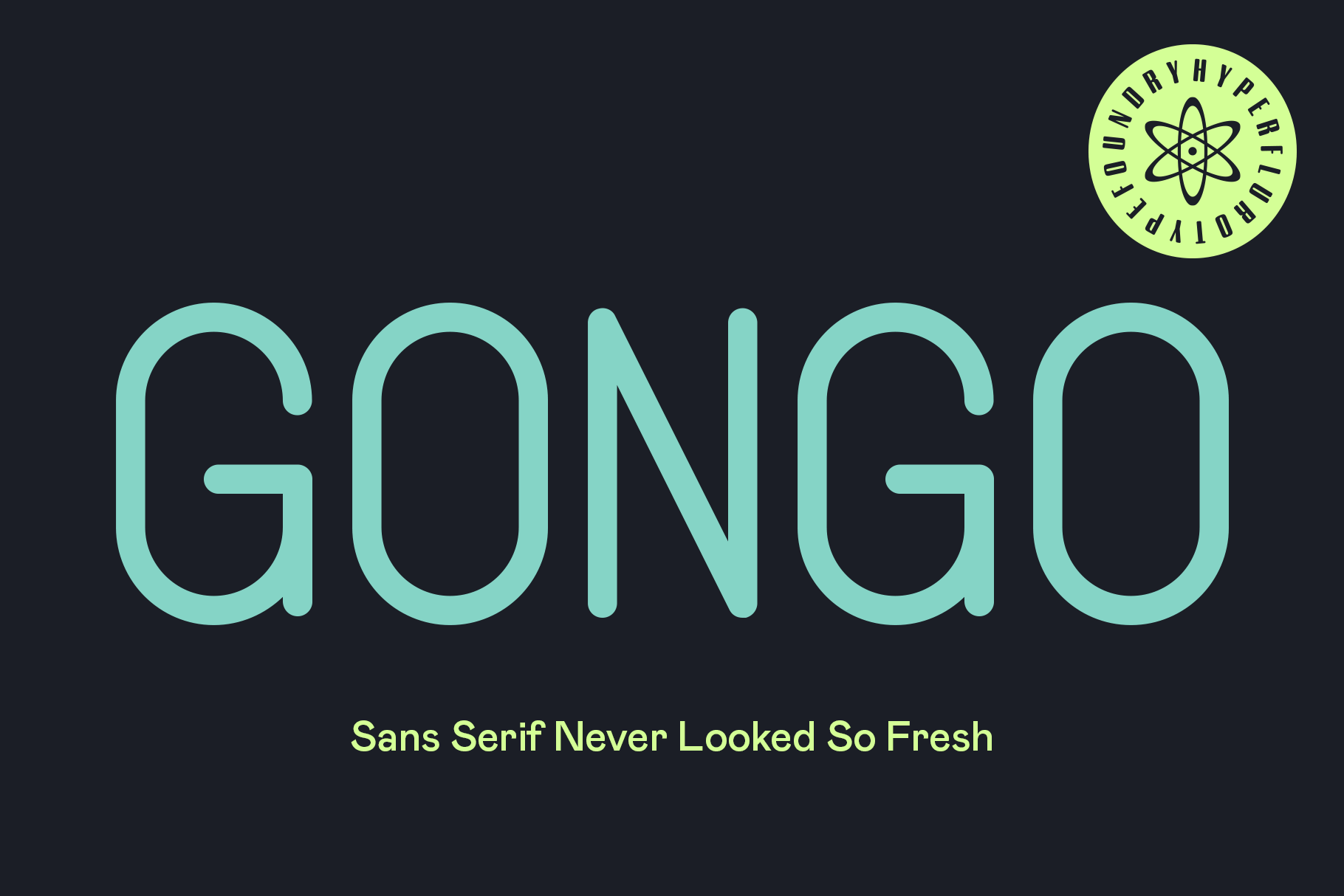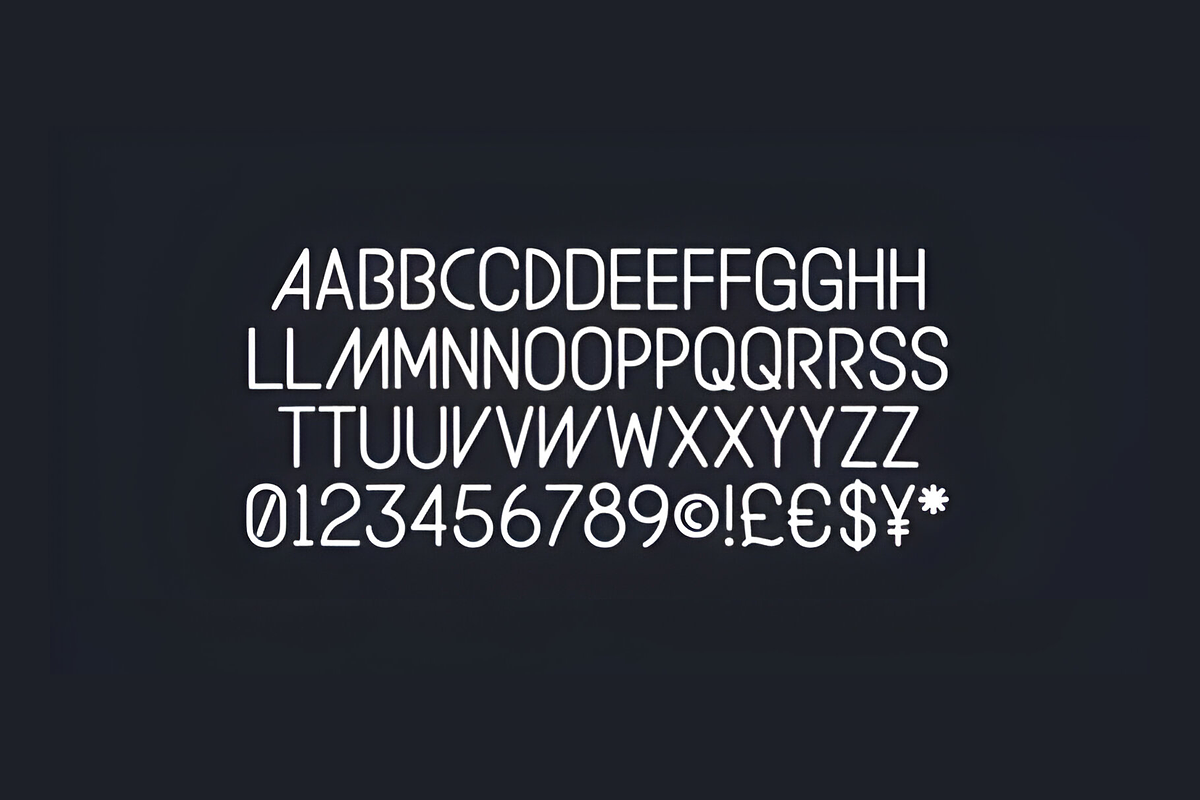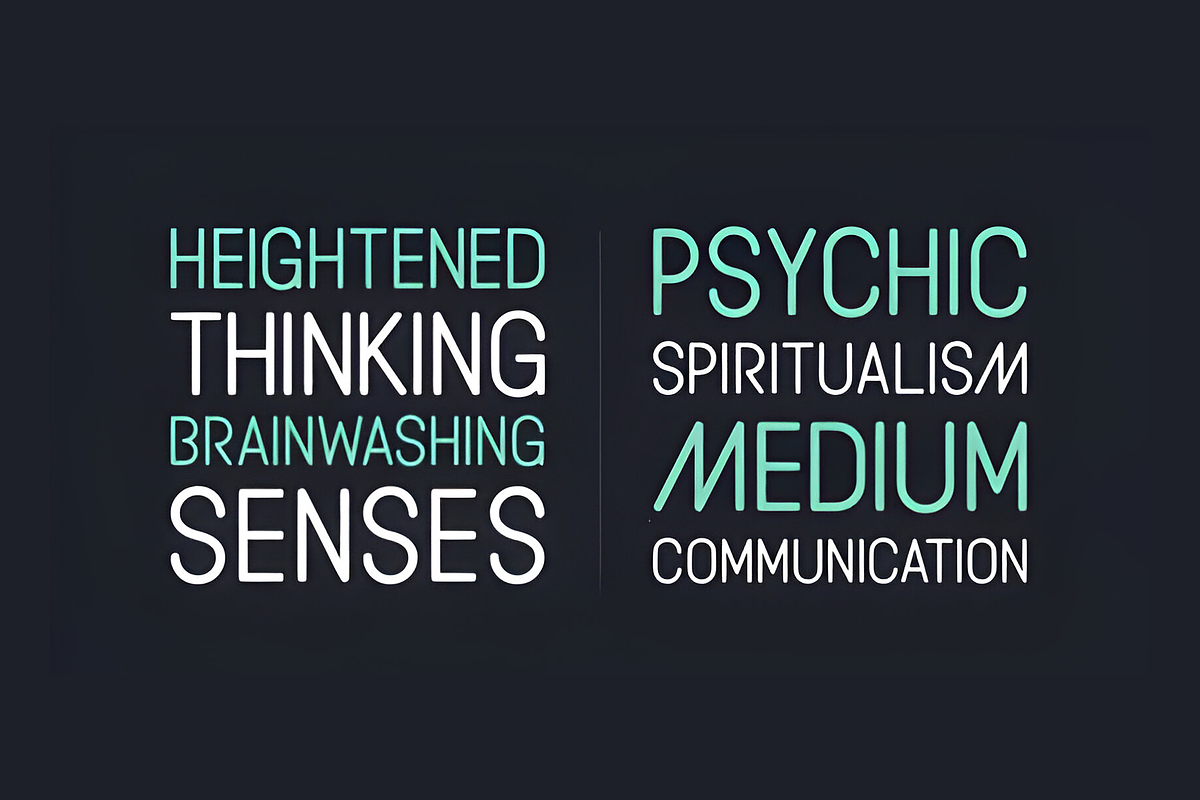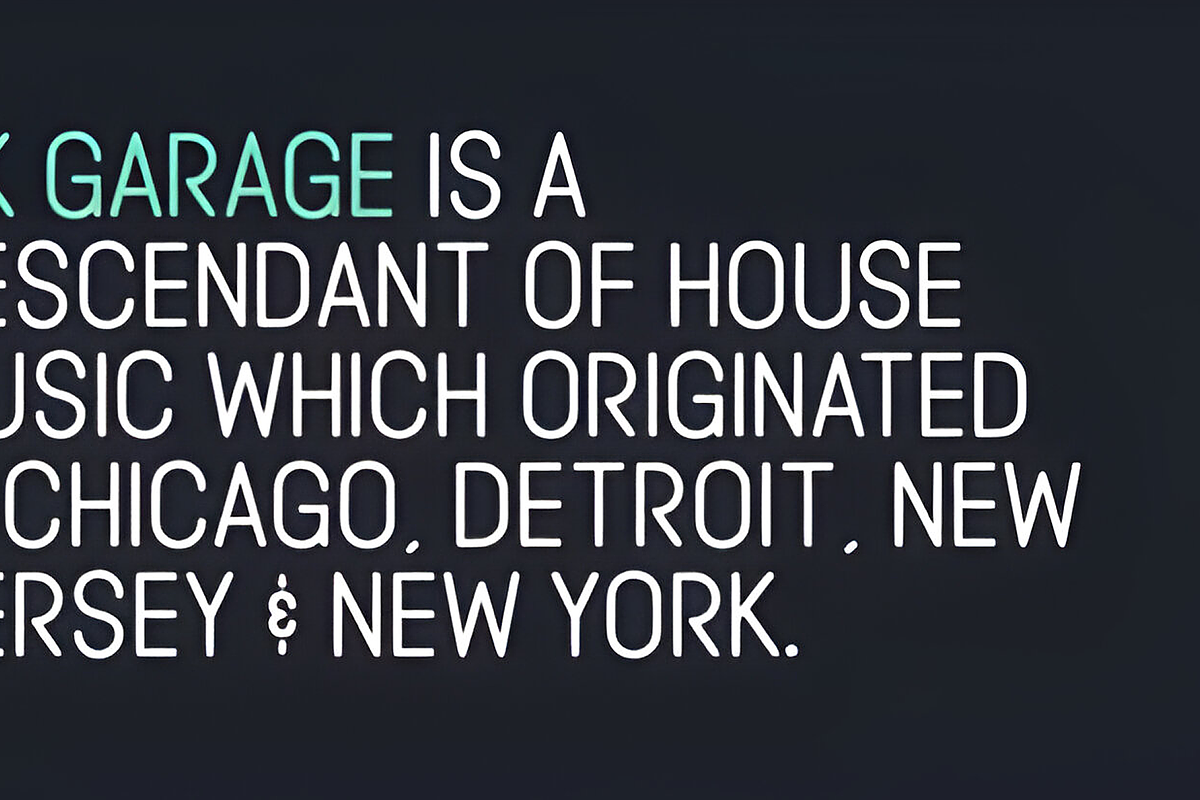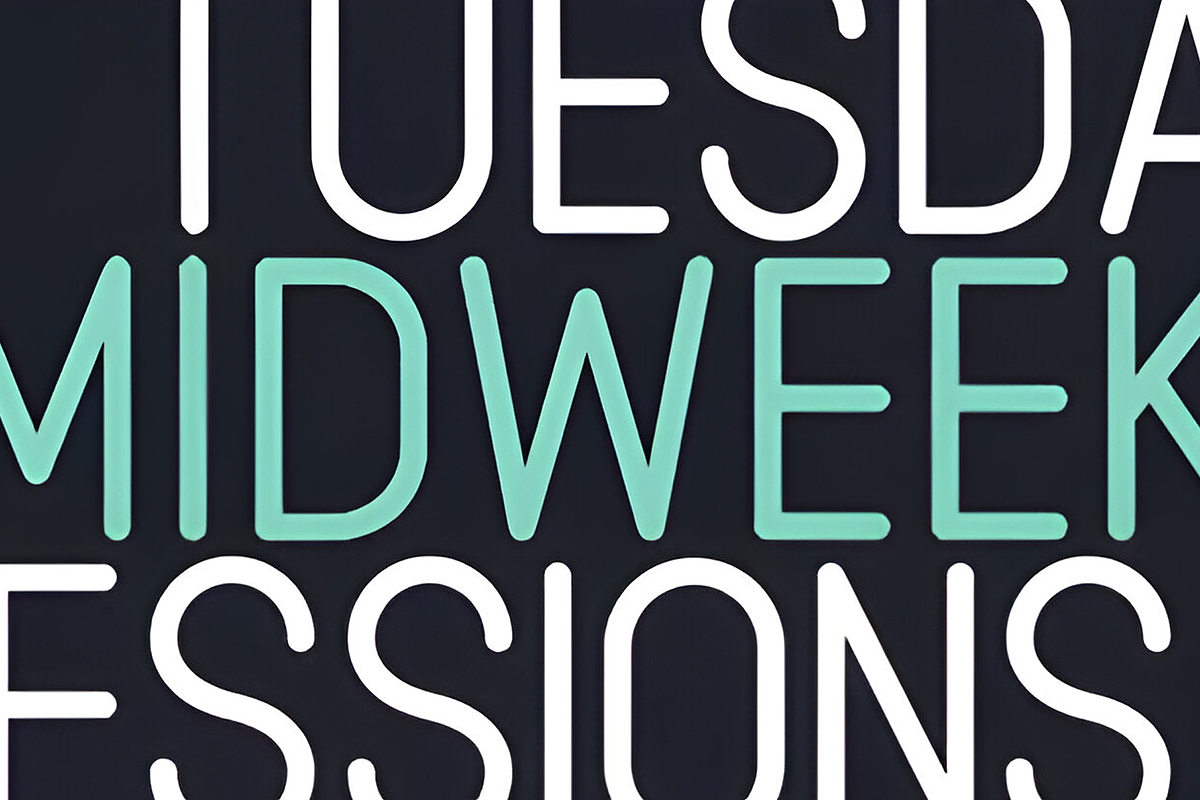
Gongo Sans Serif - 2 Fonts
Gongo – The Playfully Wise Font with Depth
Gongo blends childlike charm with the wisdom of experience, making it a versatile choice for designers seeking a font that’s both approachable and impactful. With smooth, flowing letterforms that glide effortlessly across the page, Gongo balances elegance with personality. Its inviting aesthetic is perfect for projects that demand warmth without losing authority. Whether you're crafting friendly branding, educational materials, or storytelling designs, Gongo leaves a lasting impression. For a font that speaks with both heart and wisdom, Gongo is your go-to choice.
Playful yet mature letterforms for versatile design use
Smooth, flowing structure ideal for headlines, logos, and body text
Balances friendliness with authority for impactful communication
Perfect for educational materials, children's books, and creative branding
Gongo isn't just a typeface — it's a conversation starter that blends charm with credibility.